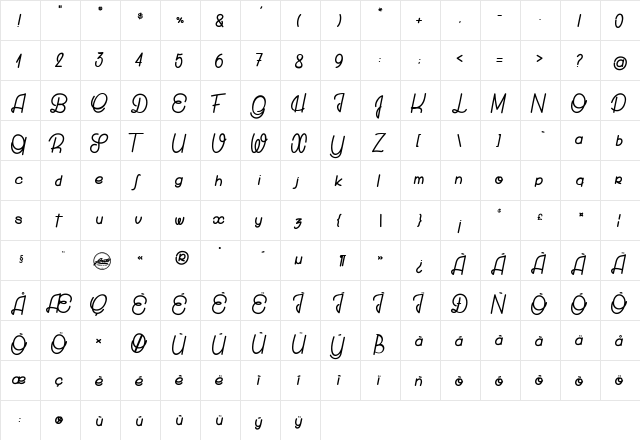
Burglar Regular Font Preview
Burglar Regular
Burglar Regular Font Details
| Foundry | dcoxy Medina Gregory |
| Designer | dcoxy Medina Gregory |
Design Context for Burglar Typeface
Burglar is a composed and adaptable typeface that performs quietly and consistently across a wide range of design contexts.